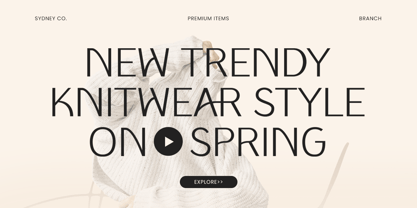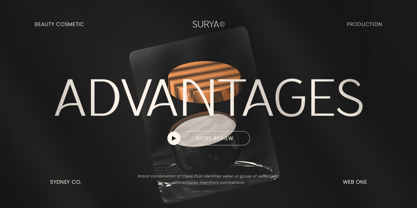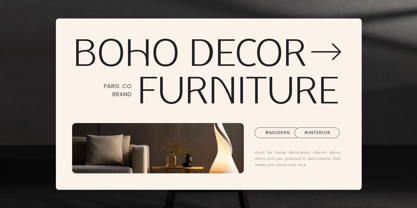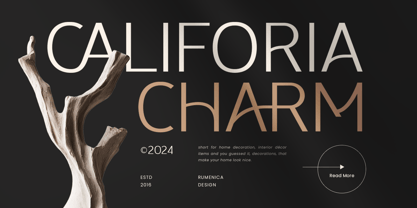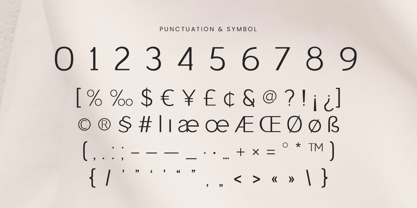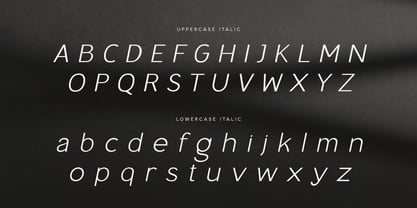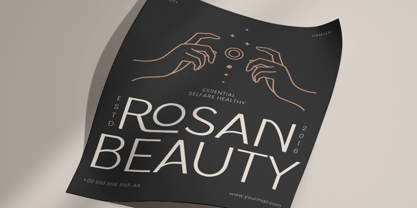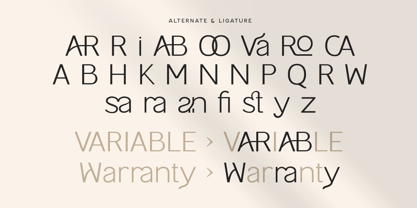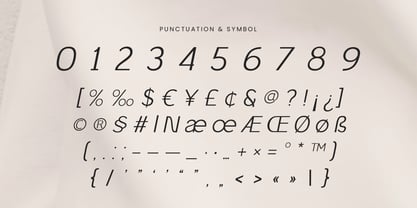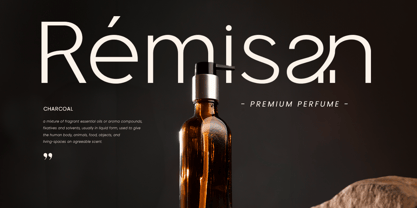
Miela
von Sensatype Studio
Die Schriftfamilie Miela wurde von Zamroni Hamzah entworfen und von Sensatype Studio veröffentlicht. Miela enthält 2 Stile und Familienpaketoptionen. Mehr über diese Familie
Miela - Professional Elegant Luxury Font
Miela is a font that epitomizes professionalism and elegance, making it the perfect choice for luxurious branding. With its sleek lines and refined style, Miela adds a touch of sophistication to any project, from high-end business materials to elegant invitations.
Designed with an eye for detail, Miela offers a unique blend of luxury and functionality. Its clean, modern letterforms ensure that your text not only looks stylish but also maintains readability, making it ideal for a range of professional uses.
Whether you're creating a logo, business card, or any other branding material, Miela delivers a polished and upscale appearance. Its elegant design ensures that your work stands out with a touch of luxury.
Miela Professional Elegant Luxury Font Features:
• Unique Ligature Characters Ready
• Punctuation, Number, and Symbol
• Uppercase and Lowercase
• Multilingual Support
• Opentype Features
Designer: Zamroni Hamzah
Foundry: Sensatype Studio